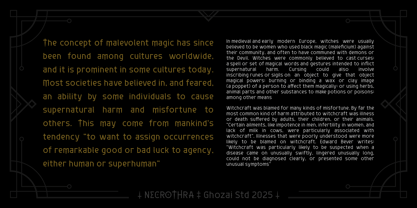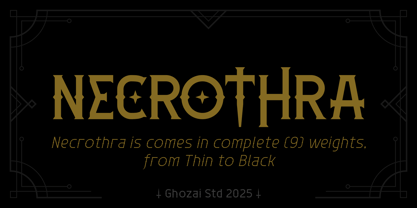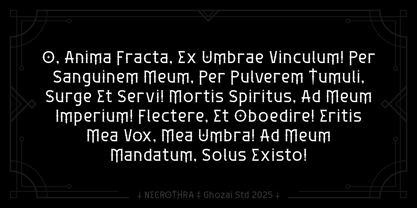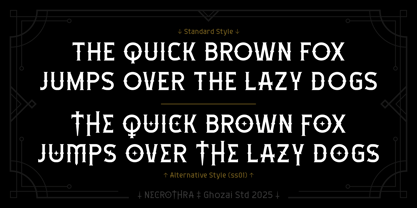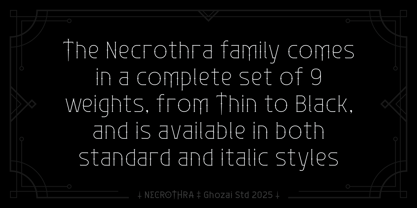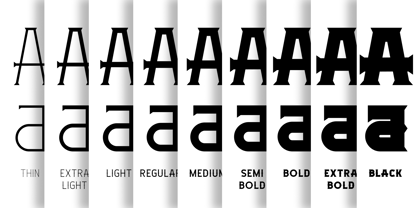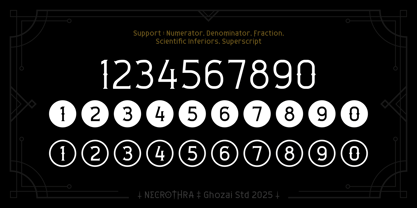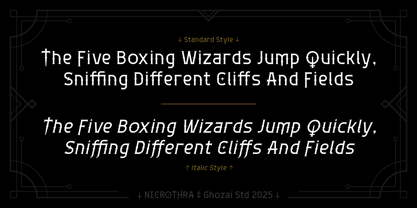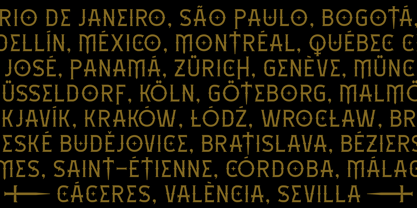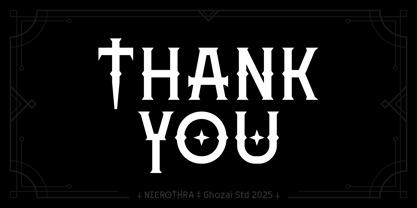
Necrothra
by Ghozai Studio
The Necrothra Font Family was designed by Manzur Ghozaali and published by Ghozai Studio. Necrothra contains 18 styles and family package options. More about this family
Necrothra is a versatile font family that includes 9 weights, ranging from Thin to Black, and is offered in both standard and italic styles. Its extensive selection of weights, OpenType features, and multilingual glyph support make Necrothra suitable for a wide array of design needs across various languages. Drawing inspiration from runes, magic, spells, and the fantasy realm, this font's unique aesthetic is perfect for numerous applications, including display typography, branding, signage, magazines, and print materials. Whether you're crafting eye-catching headlines, distinctive logos, clear signage, or branding for fantasy literature, Necrothra seamlessly blends style and functionality, adapting to different design aesthetics while adding a contemporary flair to any project.
Designers: Manzur Ghozaali
Foundry: Ghozai Studio
Necrothra